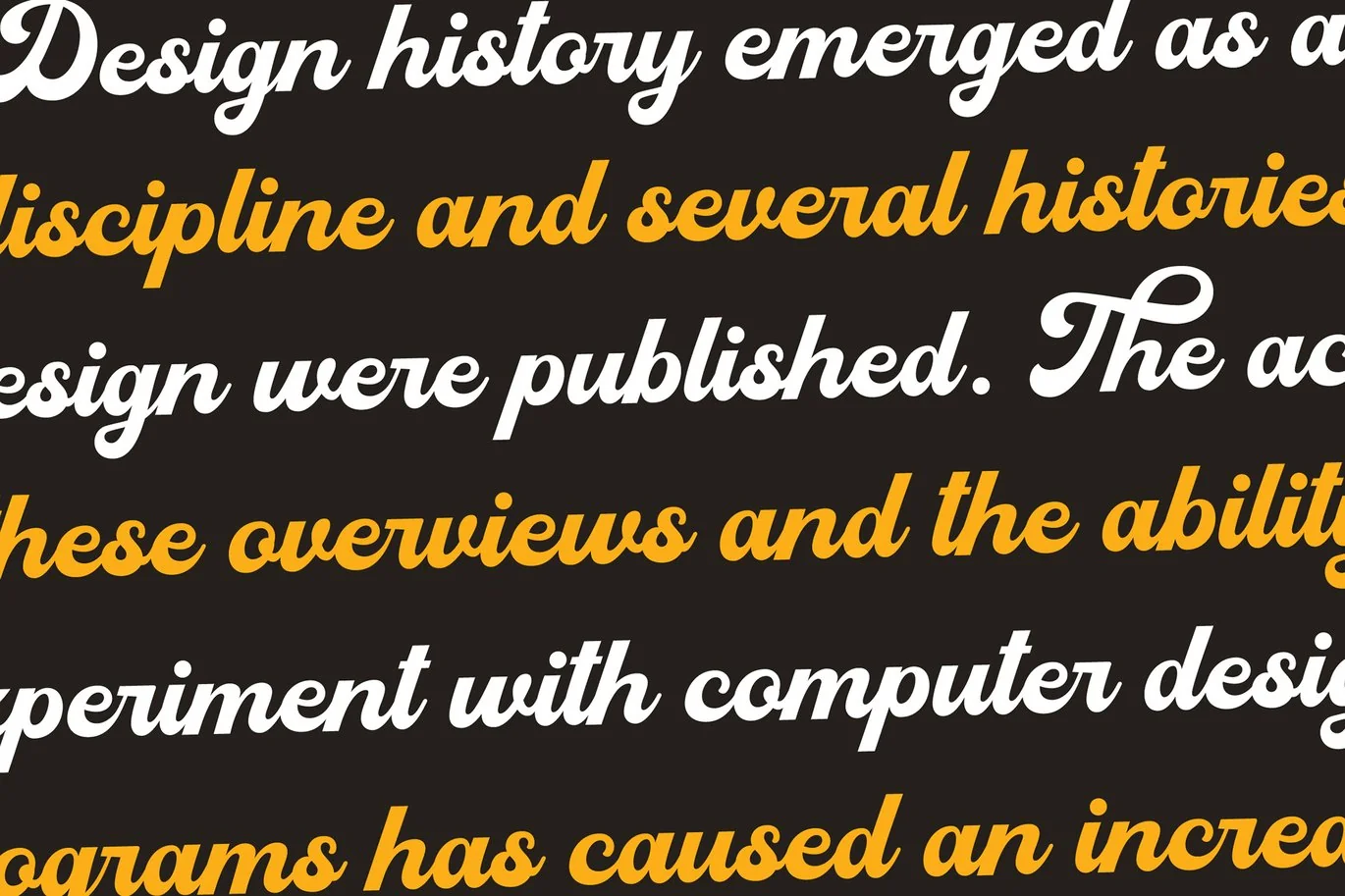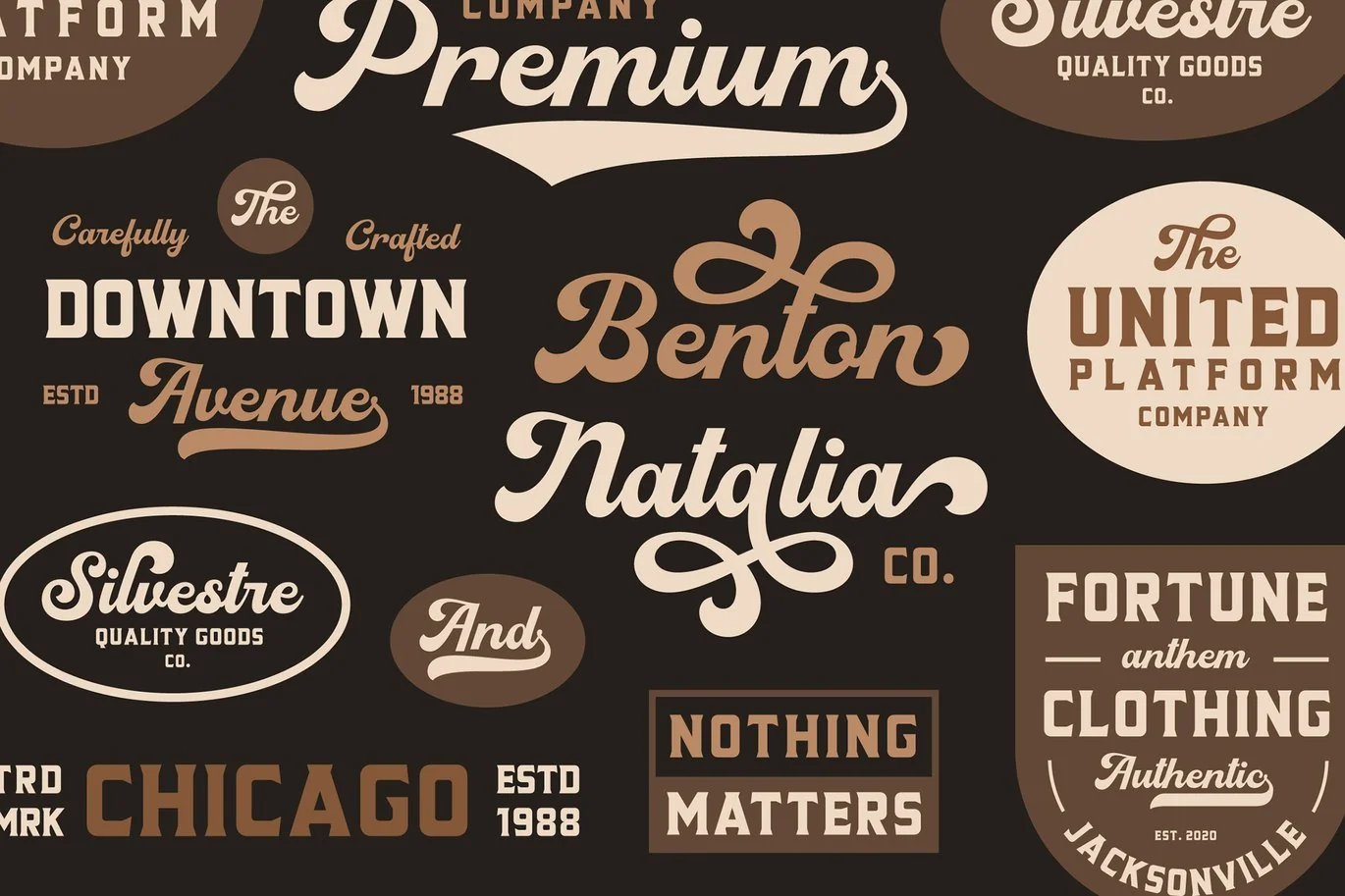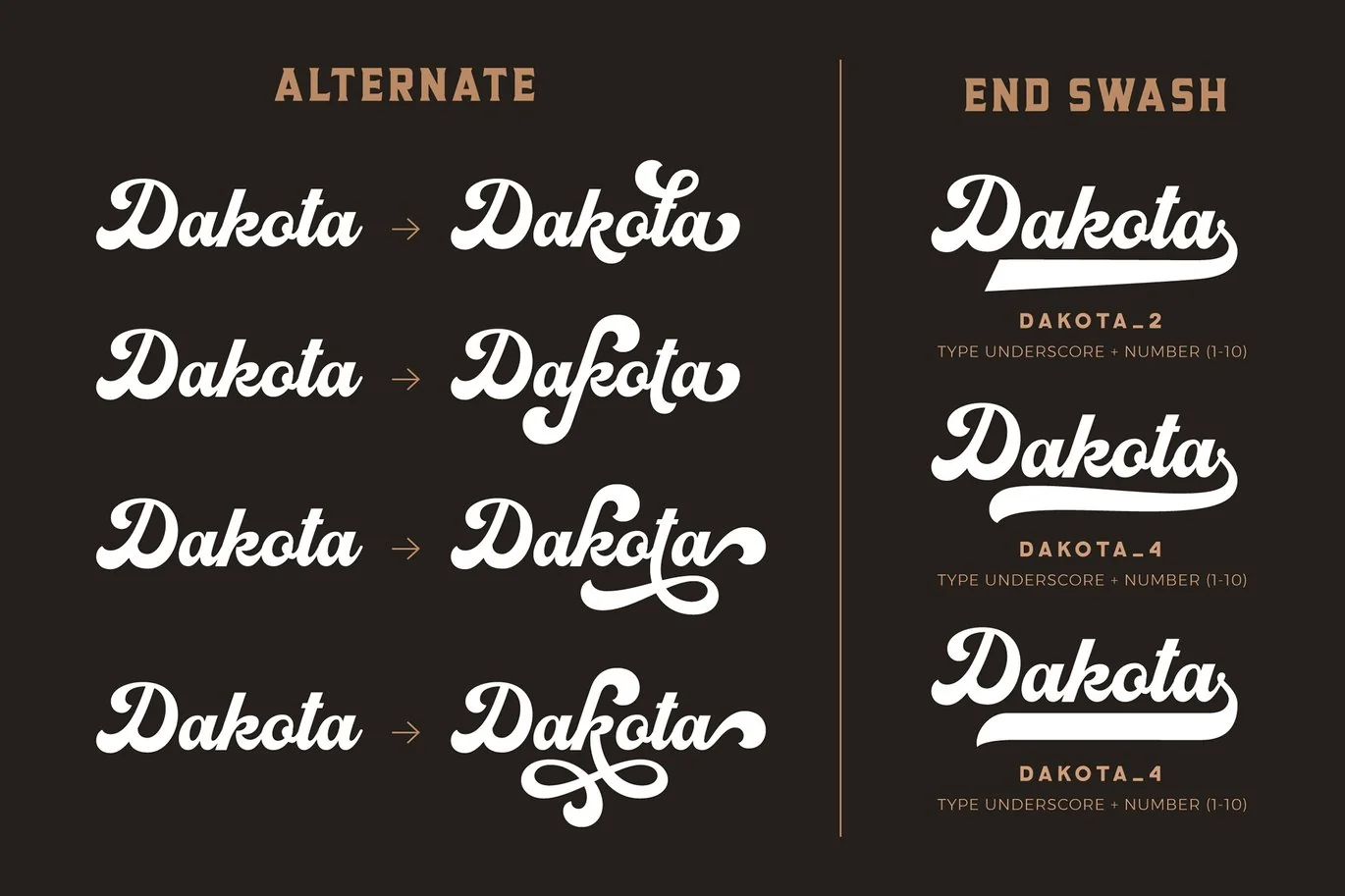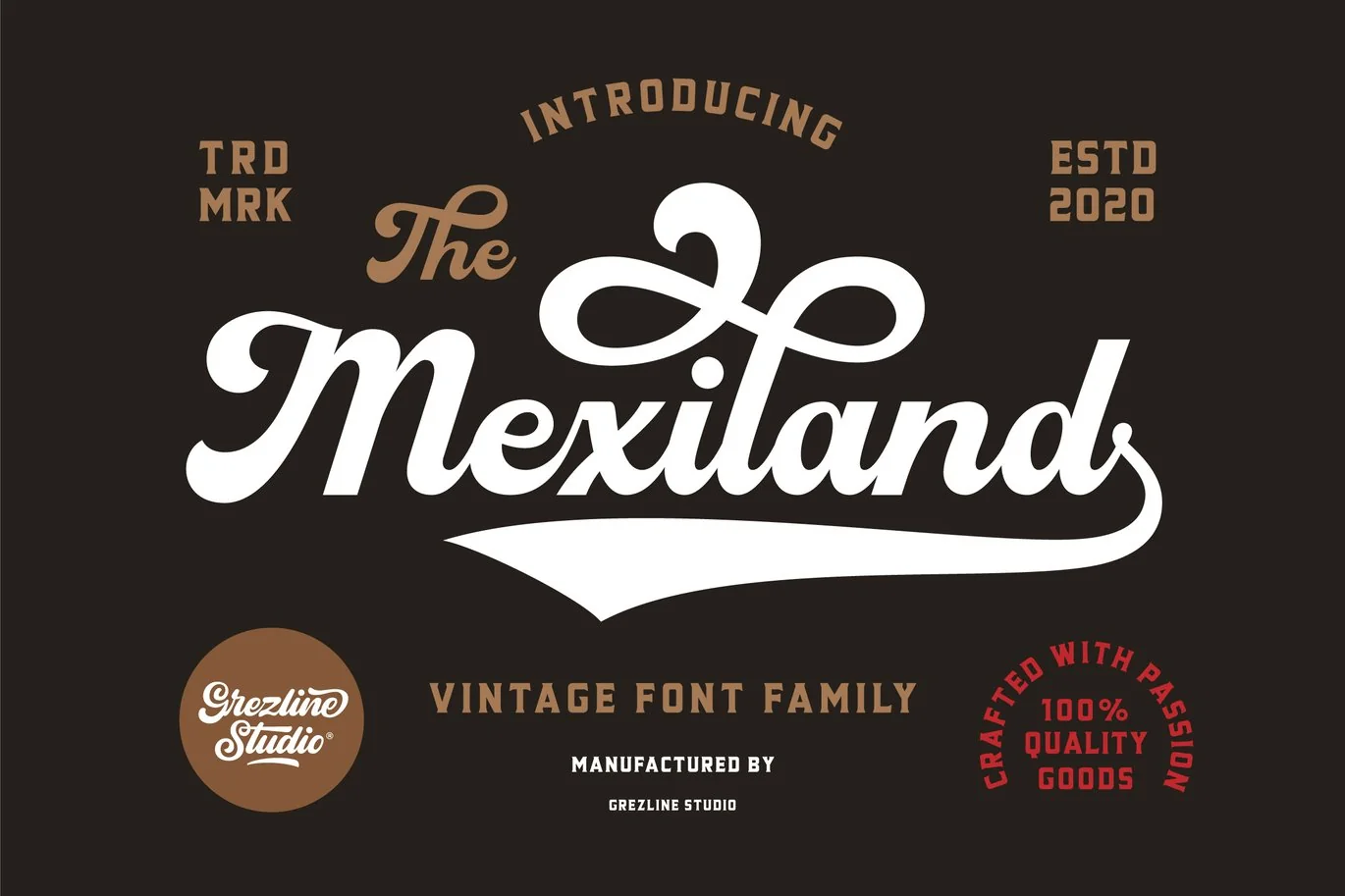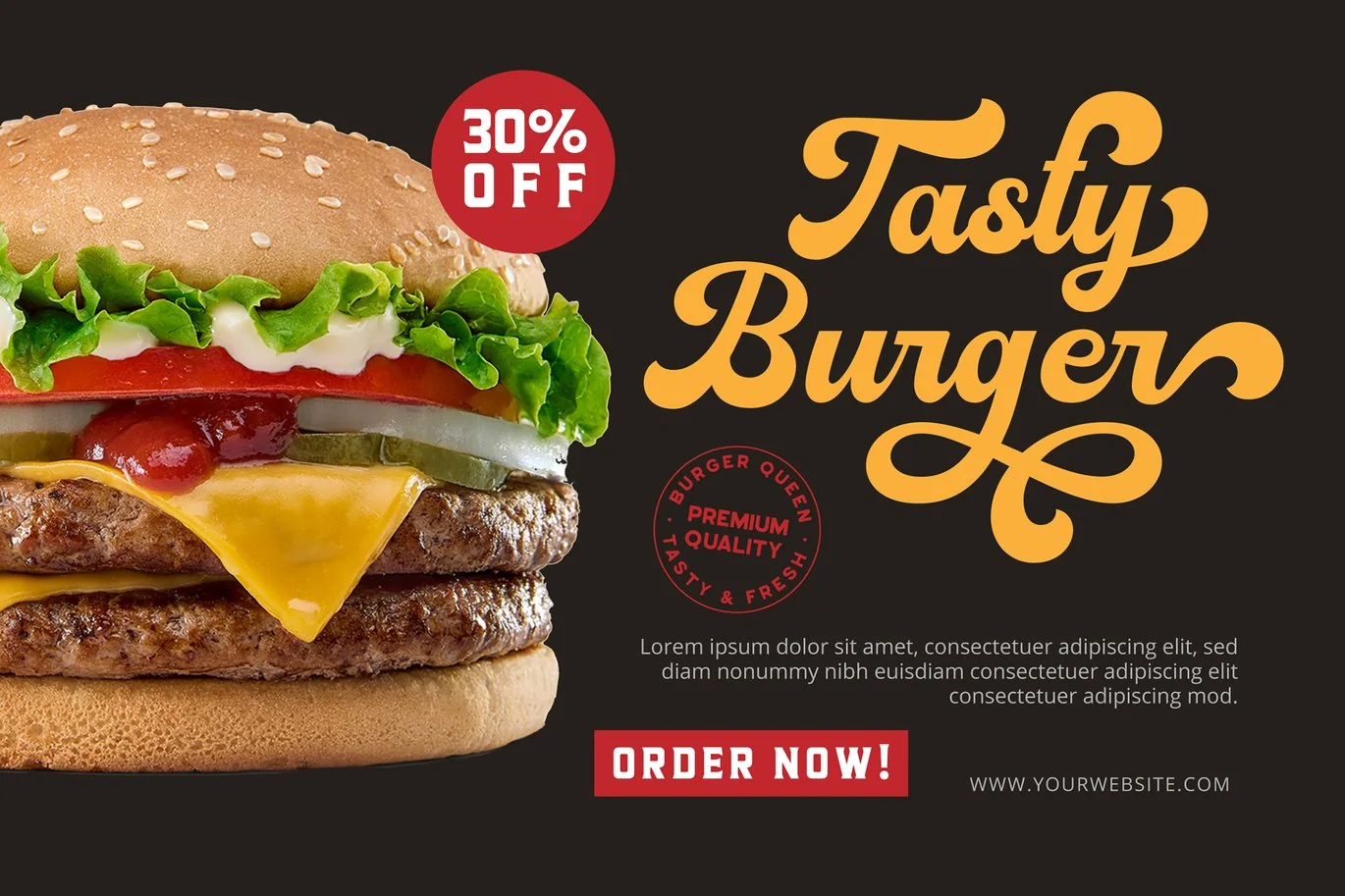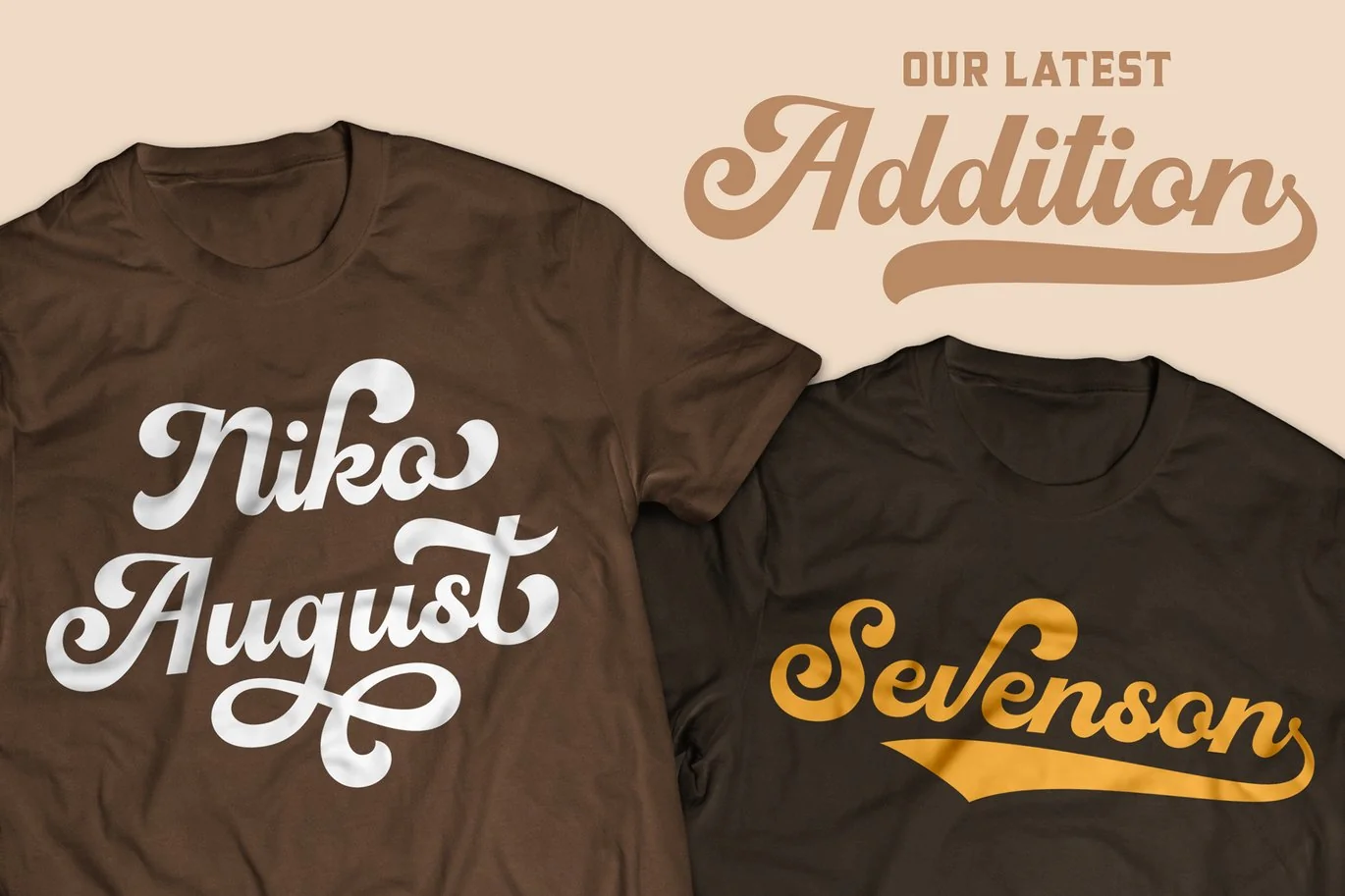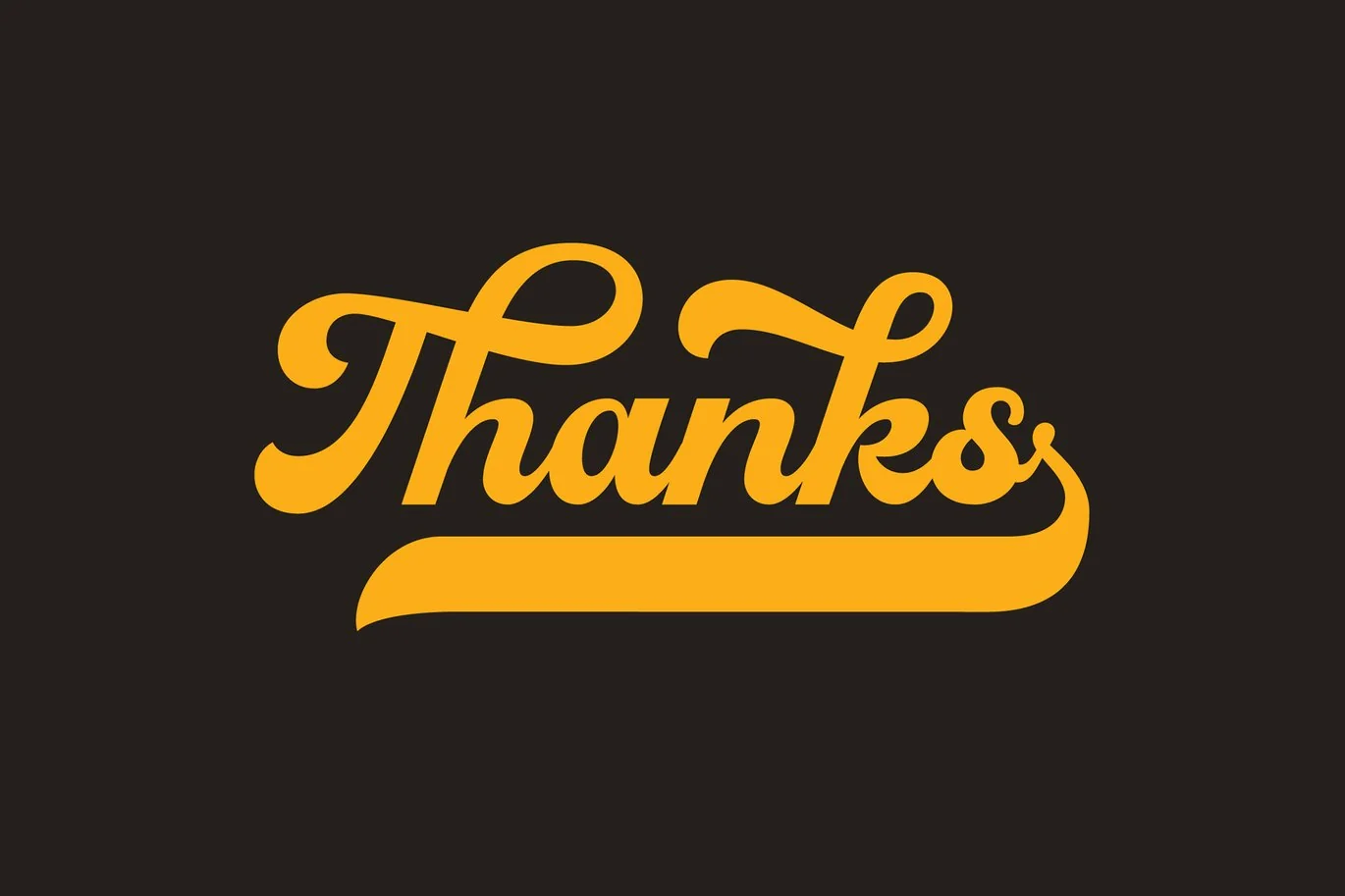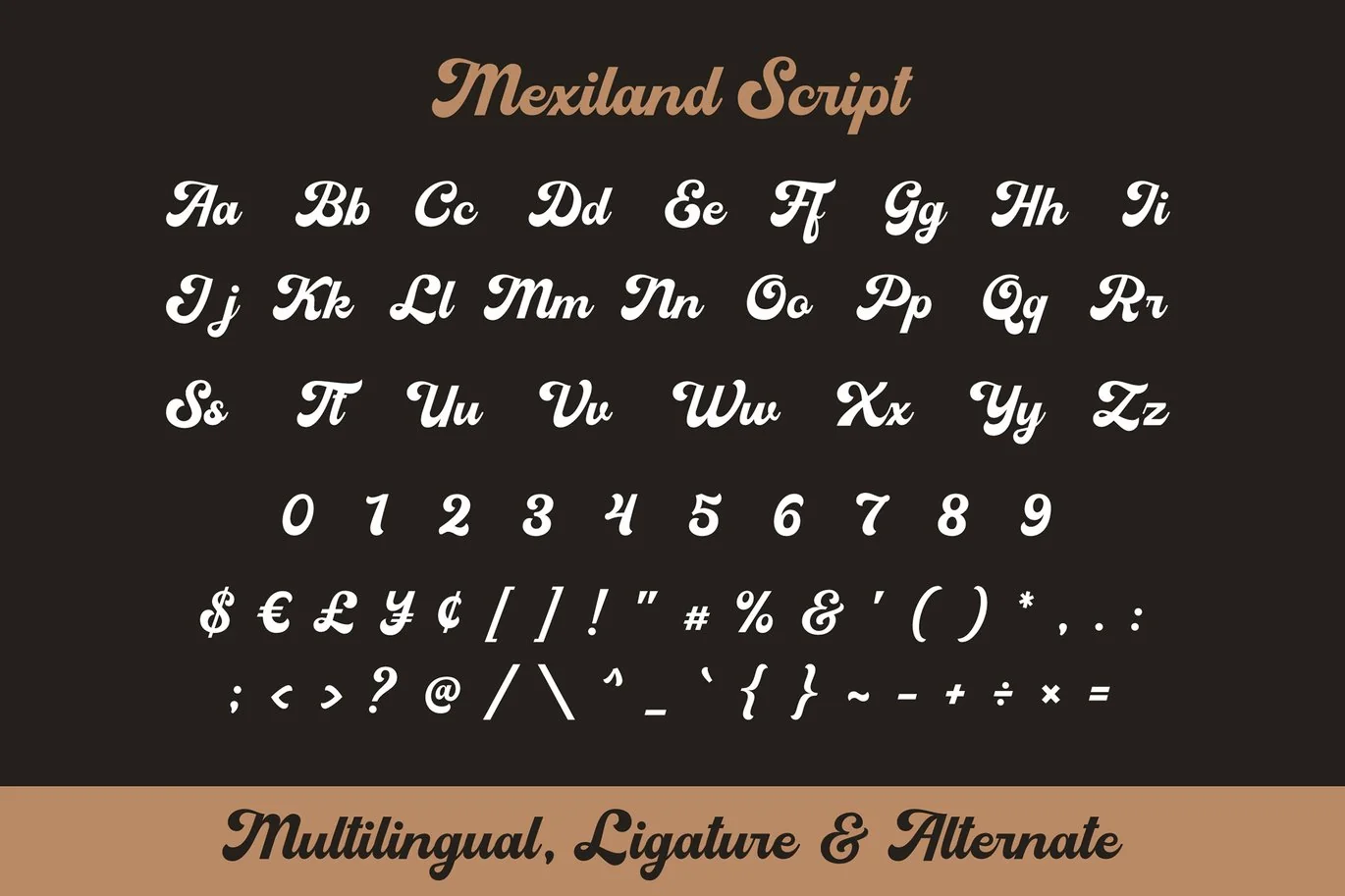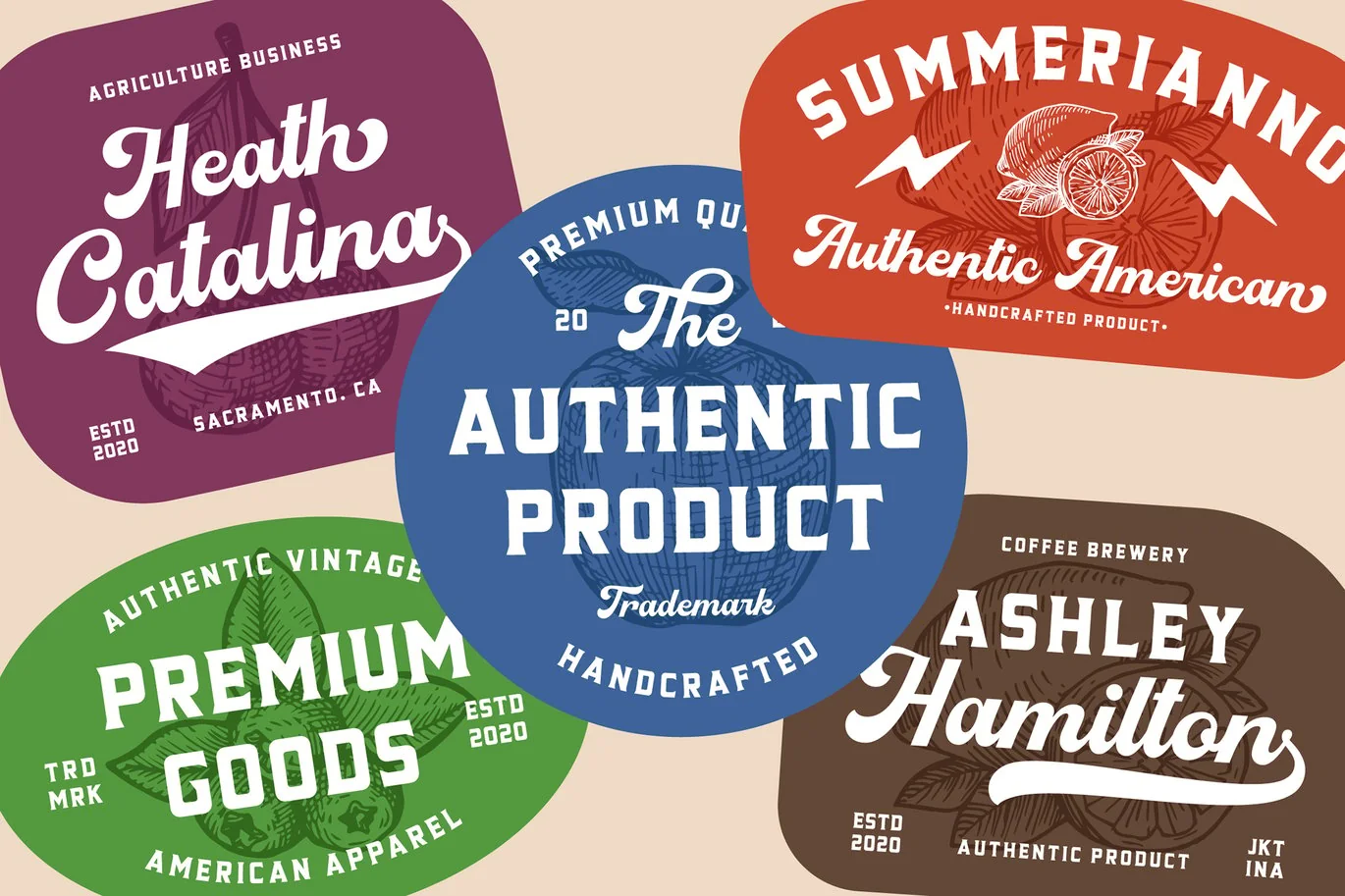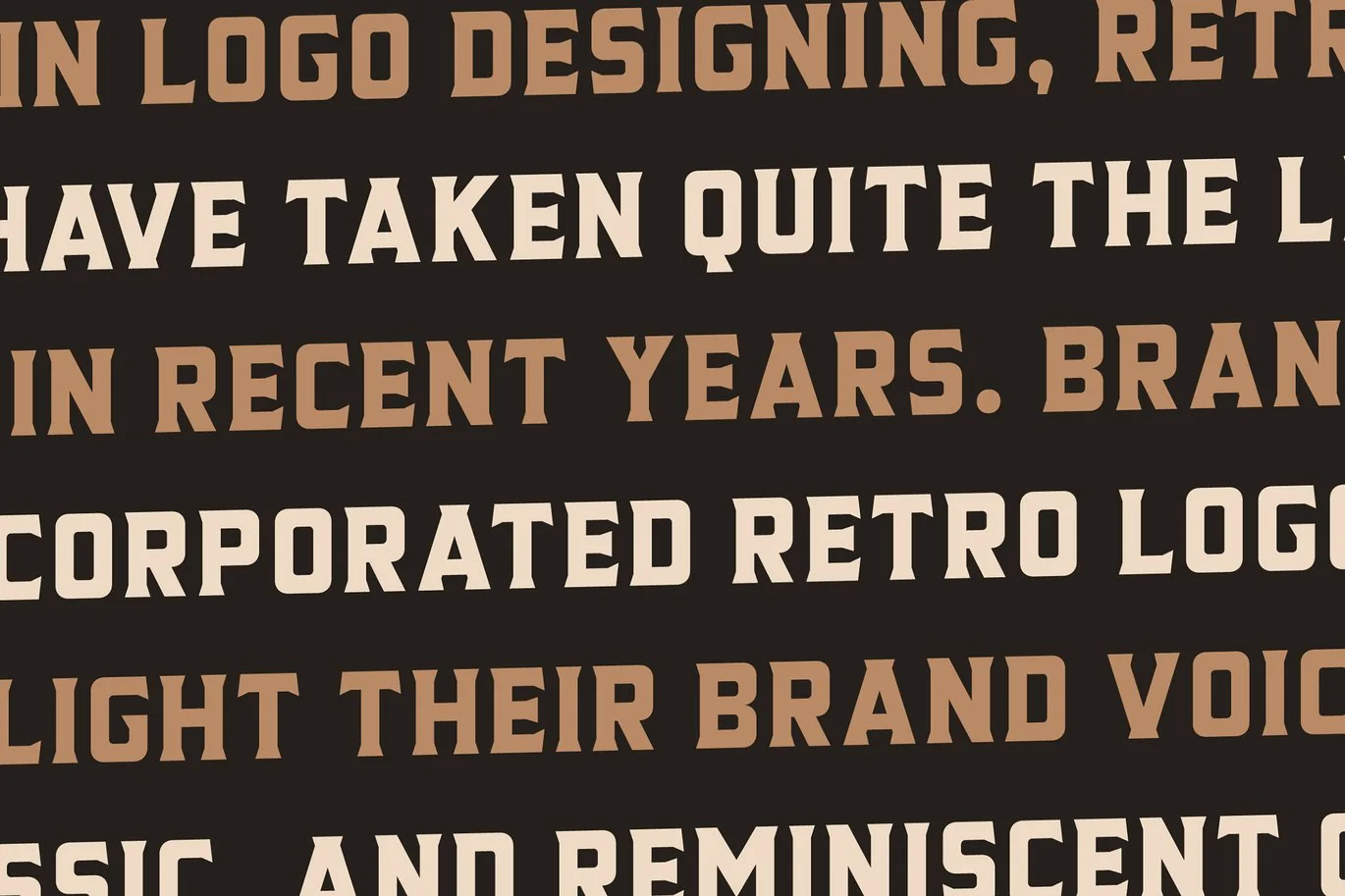
Mexiland – Vintage Font Duo
Mexiland is a display script and serif font duo with a unique vintage aesthetic. it has charming retro characteristics, but still maintains a timeless and universal appeal. Mexiland is perfect use for a logotype, typography design, product packaging, quotes, t-shirt design, label poster, headings, letterhead, cutting sticker, hot stamping, signage, and anything that need vintage vibe.
Combine them to give your designs an extraordinary look!
- A lot of Alternates ( With a Total of 700+ Glyphs )
- Numerals & Punctuations
- Multilingual Language